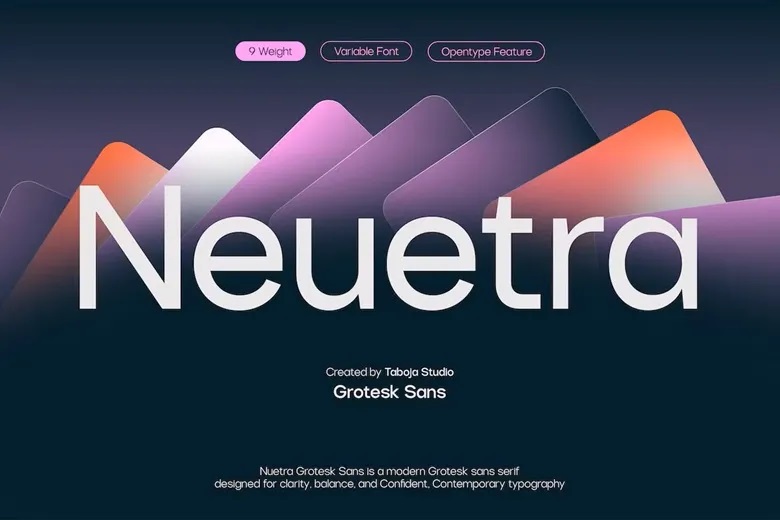
TBJ Neuetra Font Family
TBJ Neuetra is a grotesk sans serif font family built on a neutral foundation with subtle humanist touches. Instead of demanding attention, it stands out through its steady design. This creates a typeface that feels familiar but not generic, and balanced without being rigid.
The family includes nine weights and a full variable axis, giving designers real flexibility while maintaining a unified look. Spacing works well for both screen and print. Terminals are precise where needed and softer where the text should feel open.
TBJ Neuetra works well in brand identity systems, editorial layouts, UI design, and posters. It’s a reliable choice for brands and studios that need a versatile typeface that stays consistent, looks honest, and makes it easy to create a visual system. Designed for long work.
TBJ Neuetra Sans Serif Font Family